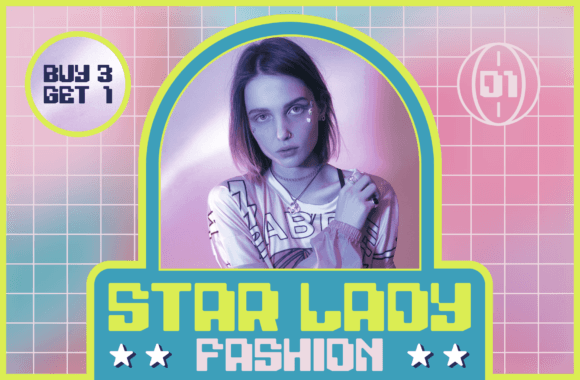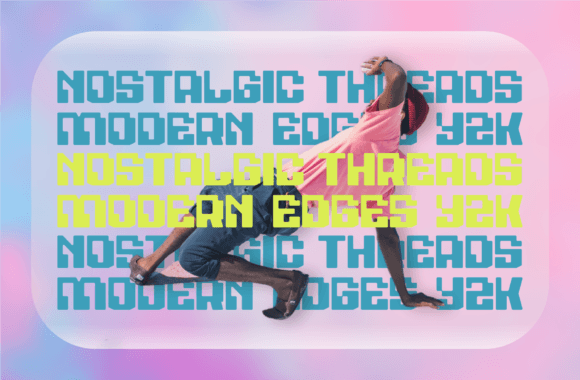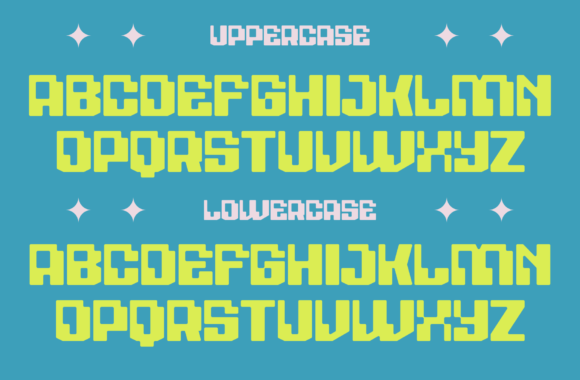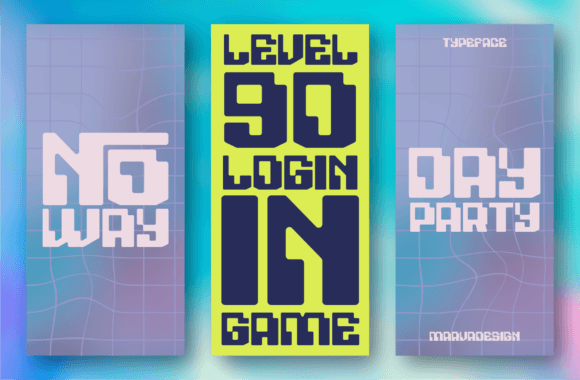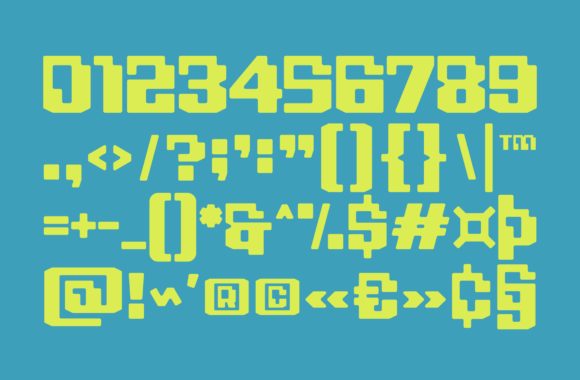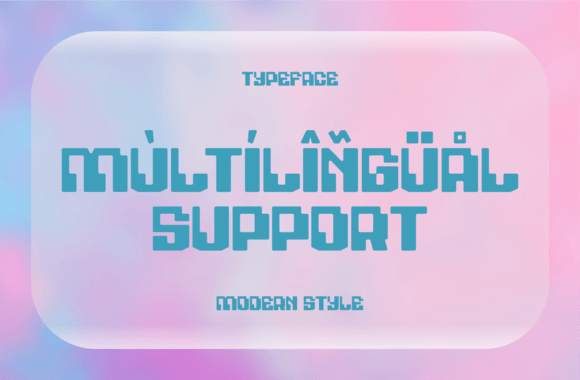
Introduction to Noser Font
Meet Noser, a trendy Modern Y2K display font.
With its sleek lines and bold style, Noser adds a touch of nostalgia to your designs while keeping things fresh and contemporary Perfect for making a statement in headlines, logos, or any project needing a modern edge with a hint of Y2K flair.
Key Features of Noser Font